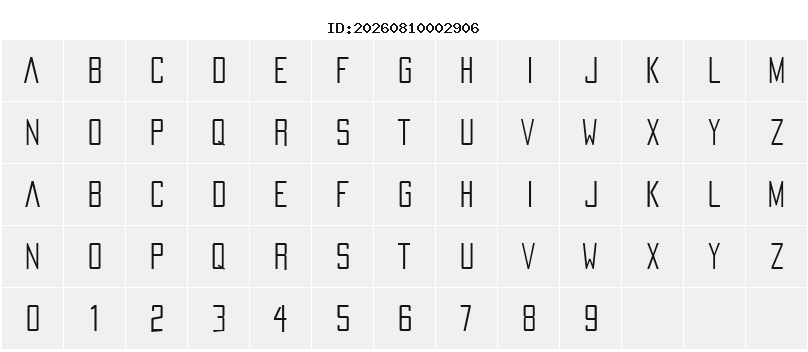
PacificaCondensed.ttf is a modern, elegant sans-serif font designed for ultimate readability and visual harmony. Perfect for branding, headlines, web design, and print materials.